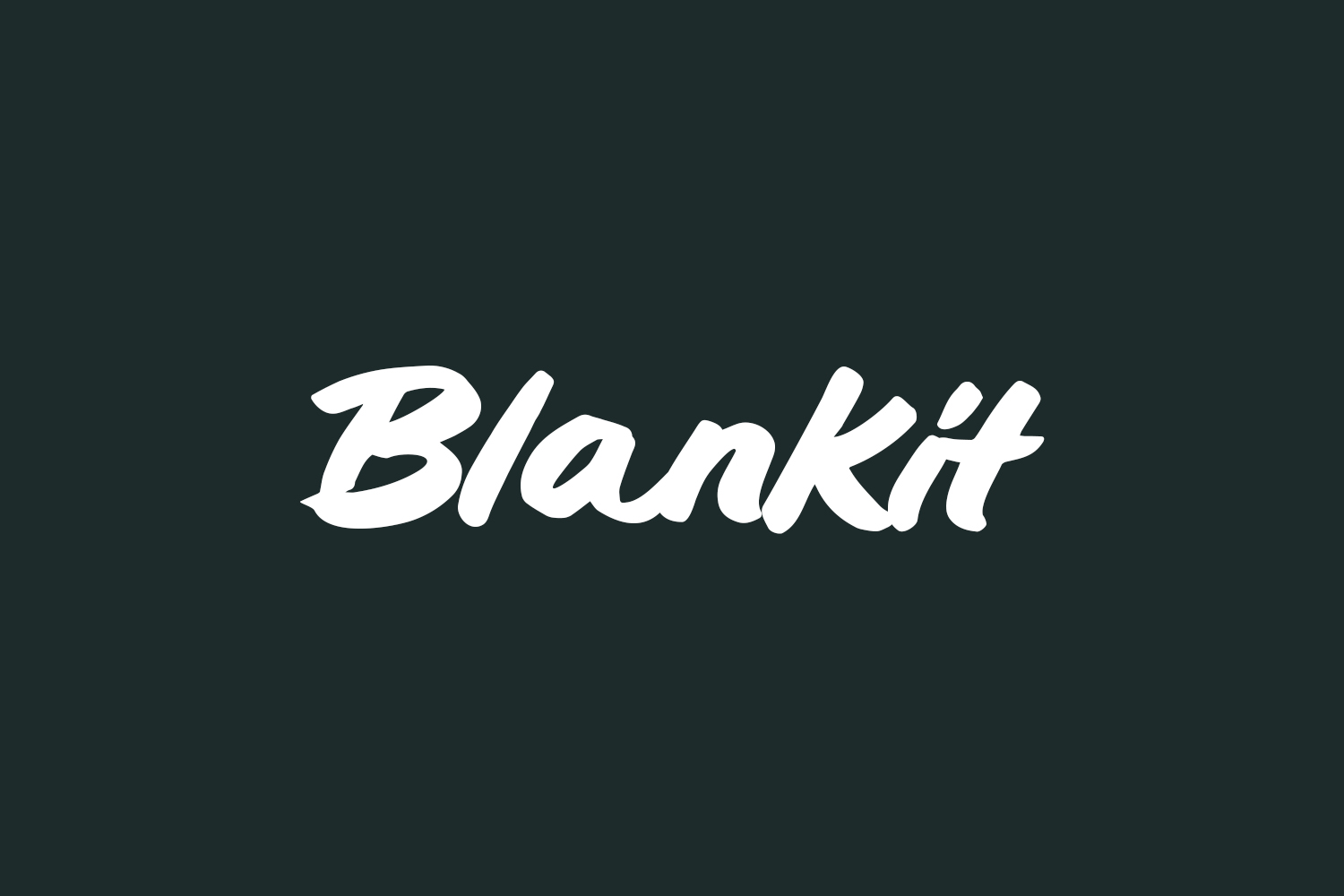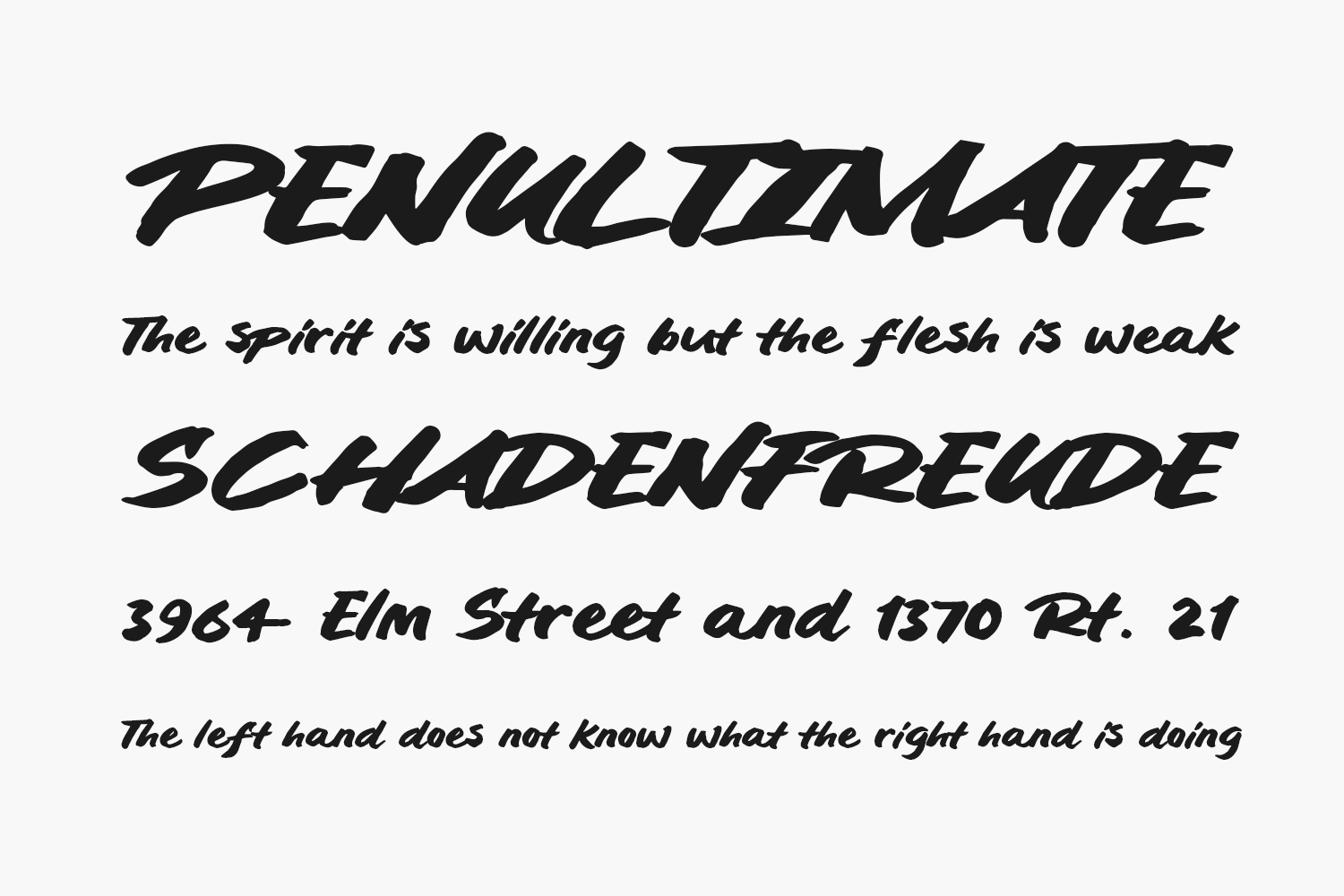
Blankit Free Font is a modern handwritten font perfect for posters, logos, magazines, book covers, banners, and many more! Get this amazing freebie, and use it to create lovely designs. Blankit Free Font was designed by Khurasan and is free for personal or commercial use.